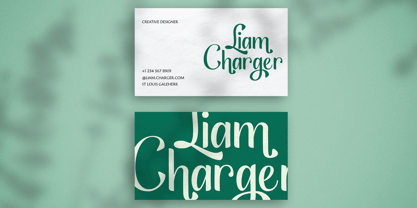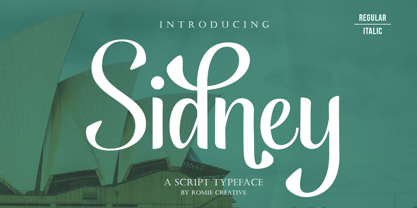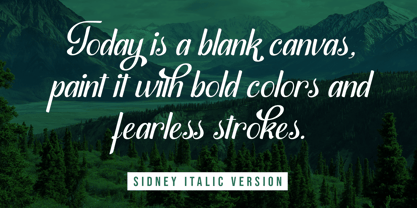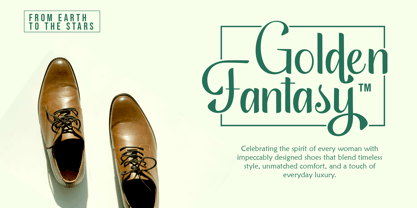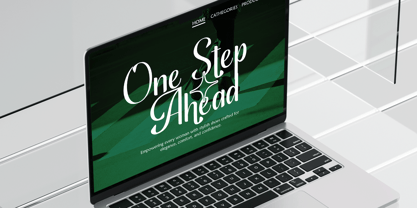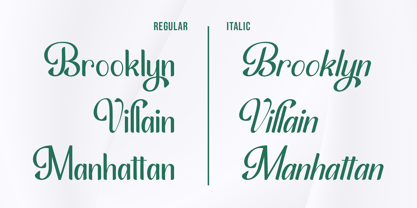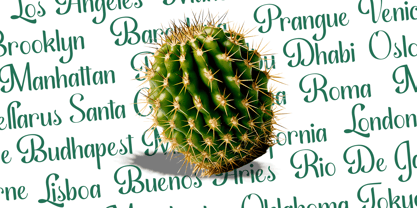
Sidney Script
by Romie Creative
The Sidney Script Font Family was designed by Romi Rahmadi and published by Romie Creative. Sidney Script contains 2 styles and family package options. More about this family
Sidney Script, New Bold rounded typeface on script It makes more fun, more trendy and beautiful. Perfect for crafts, branding, logos, invitations, stationery, wedding designs, social media posts, advertising, product packaging, product design, labels, posters, photography, special events or anything else.
About Romie Creative
Romie Creative/ Romie Creative was founded in 2019 and is run by Romi Rahmadi. I love to draw letters, fell in love with writing and write letters for a living. I love exploring and seeing how typography reflects a brand's personality. I want to continue to develop my creativity and use my passion to bring greater benefits to myself and the designer community. Founded Romie Creative to help designers choose their projects. I concentrate on handcrafted quality fonts, mostly script styles and more. Now pursuing my new passion completely from my home studio. Turned my freelance business into a type designer.